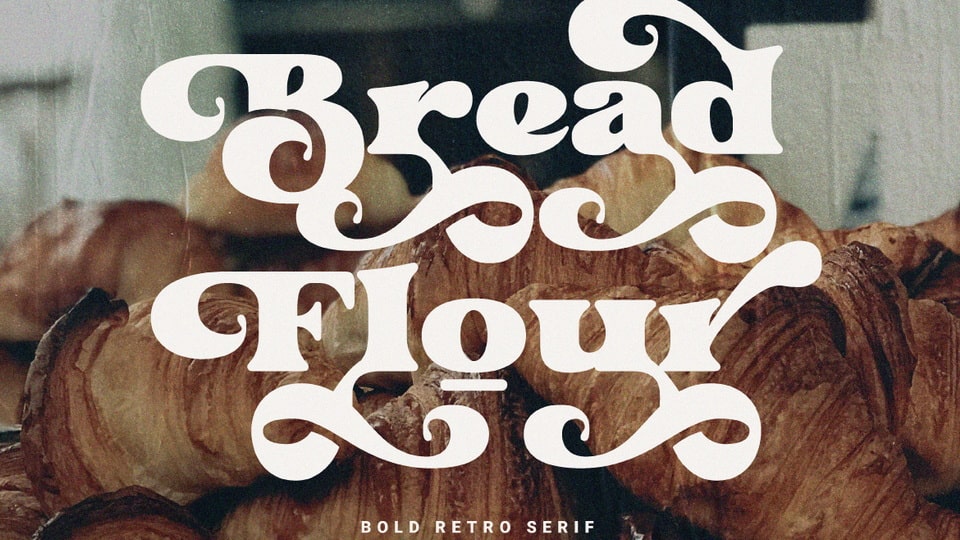
Download Bread Flour font, a fat serif typeface with a lingering retro feel. Bread Flour font is equipped with stunning character alternatives to make your design more striking.
Designer: Prioritype Co